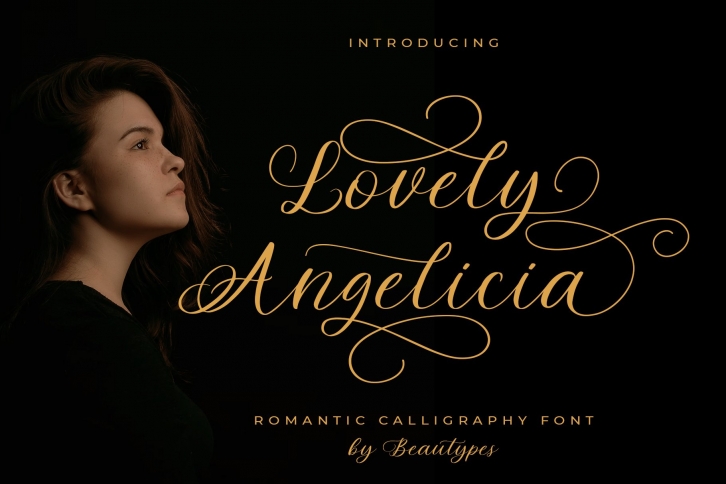
Lovely Angelicia is a great font that was designed by BeauTypes. Imagine the amount of combinations you can create using this font! The archive is 1.65 MB and it was released on March 12, 2022. Lovely Angelicia looks beautiful on wedding invitations, greeting cards, logos, posters, labels, t-shirt designs, logos, business cards and is perfect for use in ink or watercolor works, fashion, magazines, packaging and food menus, children's books and more!